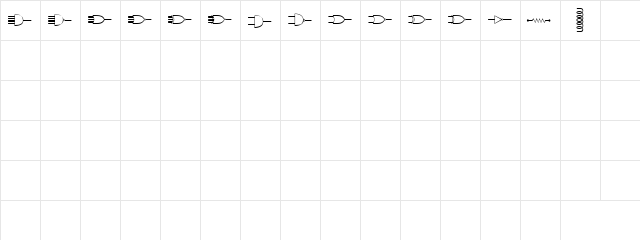
TQF_Electronics Regular Font Preview
TQF_Electronics Regular
Design Context for TQF_Electronics Typeface
TQF_Electronics is a composed and adaptable typeface that performs quietly and consistently across a wide range of design contexts.
Pro Tip: Use TQF_Electronics in both headline and body roles to test its range before committing to a single application.